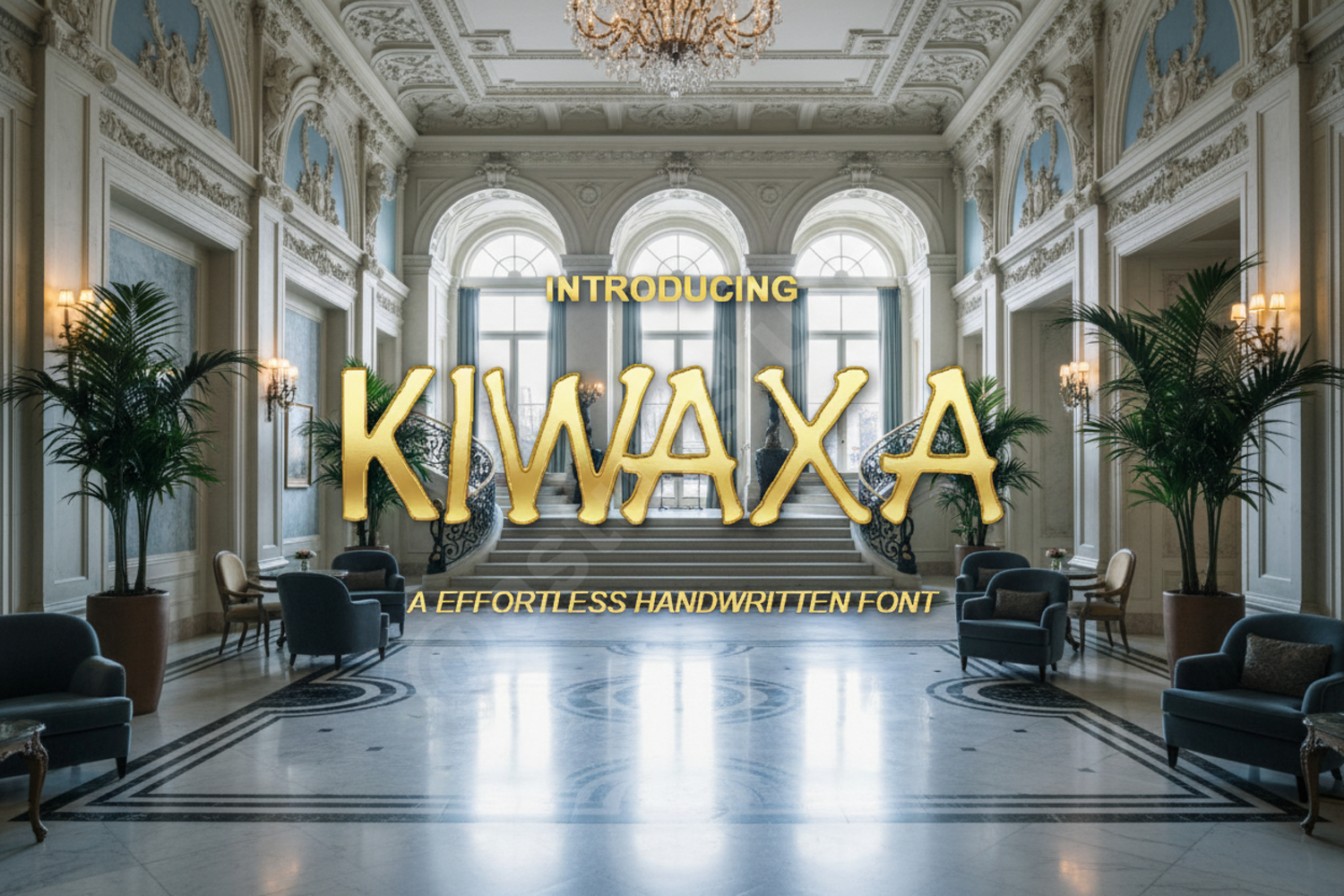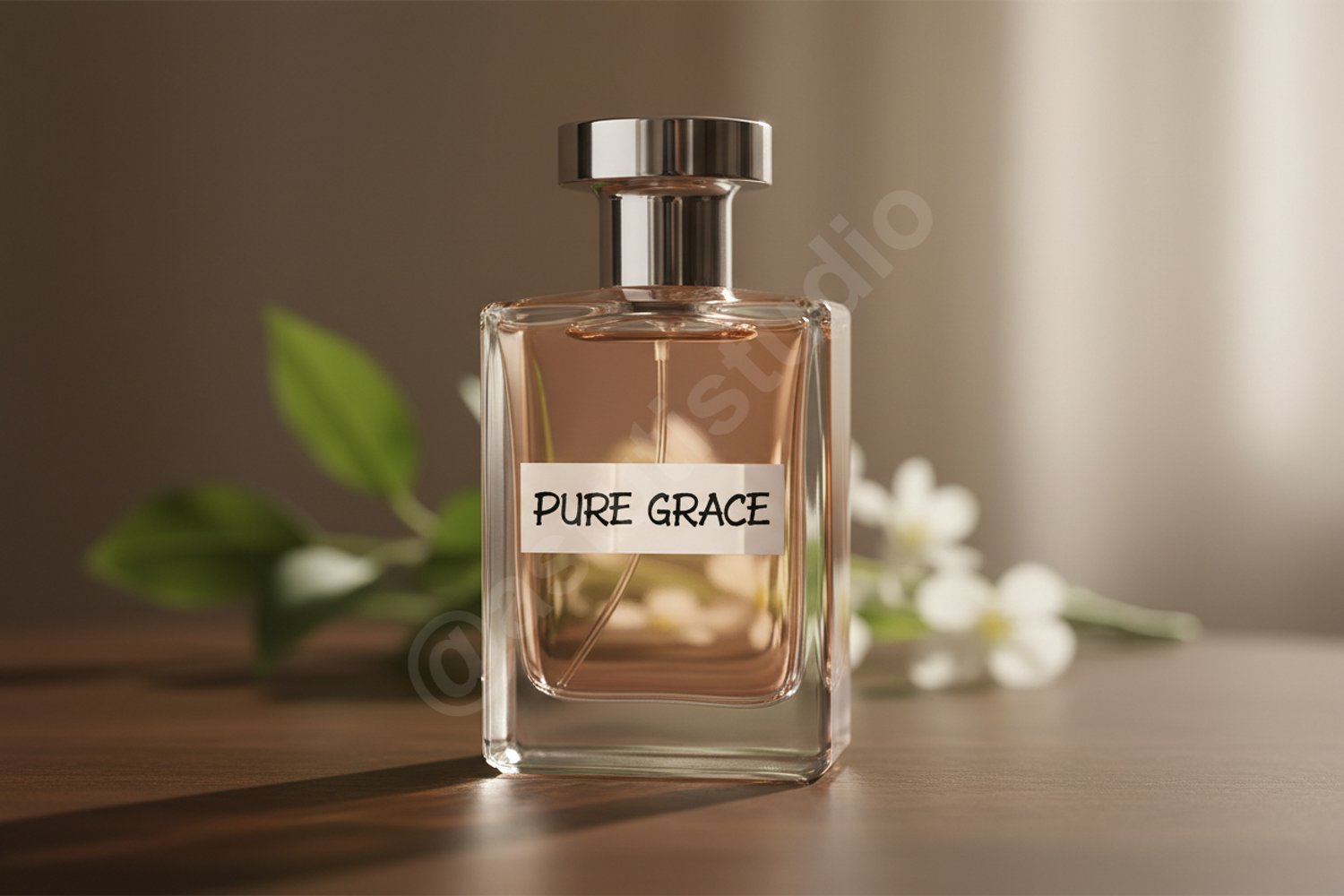
Kiwaxa - Contemporary Geometric Sans Serif
Kiwaxa
Experience the perfect blend of precision and style with Kiwaxa. This premium geometric sans serif is meticulously crafted for designers who demand excellence and versatility. Its clean lines and perfectly balanced proportions offer a sophisticated touch to any creative work, making it an essential addition to any professional font library.